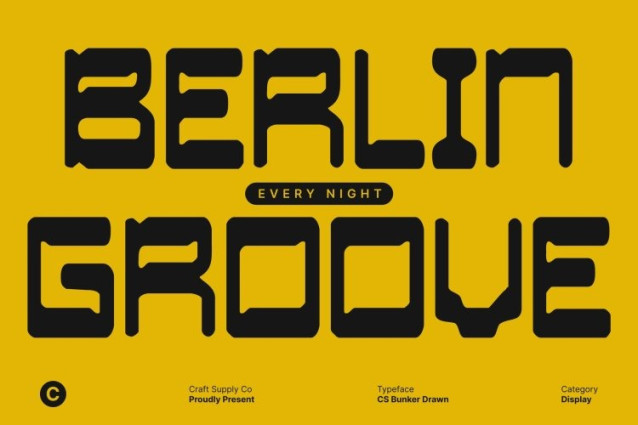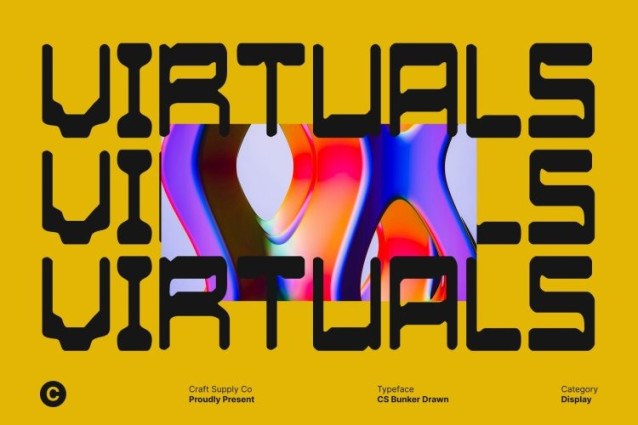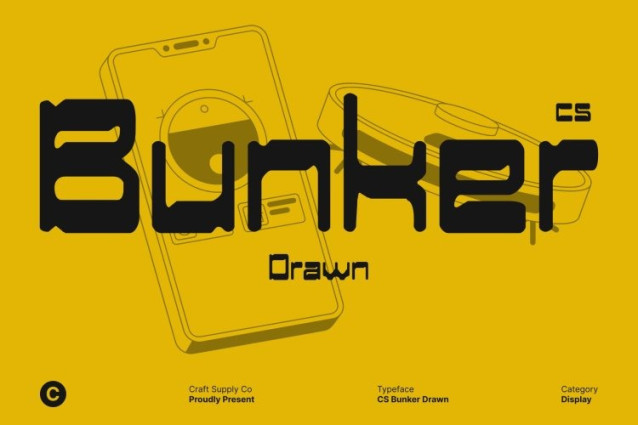
CS Bunker Drawn Font
CS Bunker Drawn Font This is a bold, techno-inspired display font designed to convey strength, energy, and contemporary style. Its sharp, reverse-contrast letterforms create a striking visual impact, making it ideal for branding, logos, posters, and other display purposes. The font’s geometric precision and futuristic shapes give designs a sense of movement and innovation, perfect for projects that aim to capture attention and communicate modernity.
Hand-Drawn Effect for Futuristic Texture
The drawn effect applied to this font adds an artistic, handcrafted texture that enhances its unique personality. Subtle irregularities and organic line details give the font a dynamic, tactile feel, making each character appear alive and expressive. This combination of geometric structure and artistic texture results in a font that is both precise and visually engaging.
Dynamic and Eye-Catching Letterforms
With strong, bold strokes and high-impact shapes, ensures maximum readability while maintaining a futuristic aesthetic. Its reverse contrast design adds depth and dimension, allowing headlines, logos, and promotional materials to stand out with confidence.
Versatile for Creative and Futuristic Designs
This font adapts seamlessly to a variety of design applications, from print to digital media. Whether used in branding, posters, editorial layouts, or tech-inspired campaigns, this font delivers a memorable, futuristic presence. Its blend of modern sans serif precision and drawn artistic texture ensures every project is infused with energy, style, and a contemporary edge.